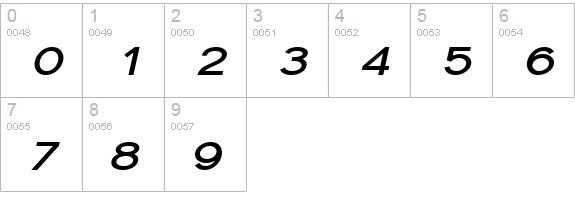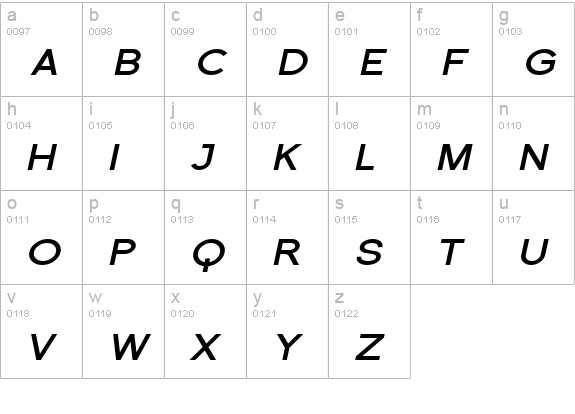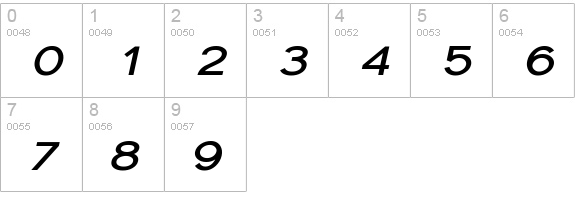
Florencesans SC Exp Bold Italic is a strong, high-contrast, italic variant in the Florencesans typeface family \xE2\x80\x94 well suited to headlines, attention-grabbing titles, and strong calls-to-action.
Florencesans SC Exp Bold Italic font exudes a bold and dynamic elegance, perfect for making a statement in your designs. Its sleek and modern aesthetic is sure to grab attention and add a touch of sophistication to any project. The strong emphasis on the italic styling gives it a unique flair that sets it apart from other fonts. What makes Florencesans SC Exp Bold Italic font even more appealing is that it is freely available to download at FontsMarket.com. This means you can easily access this stunning font to elevate your designs without any cost. Whether you're working on branding, advertising, or any creative project, Florencesans SC Exp Bold Italic font is a versatile choice that will surely make an impact.